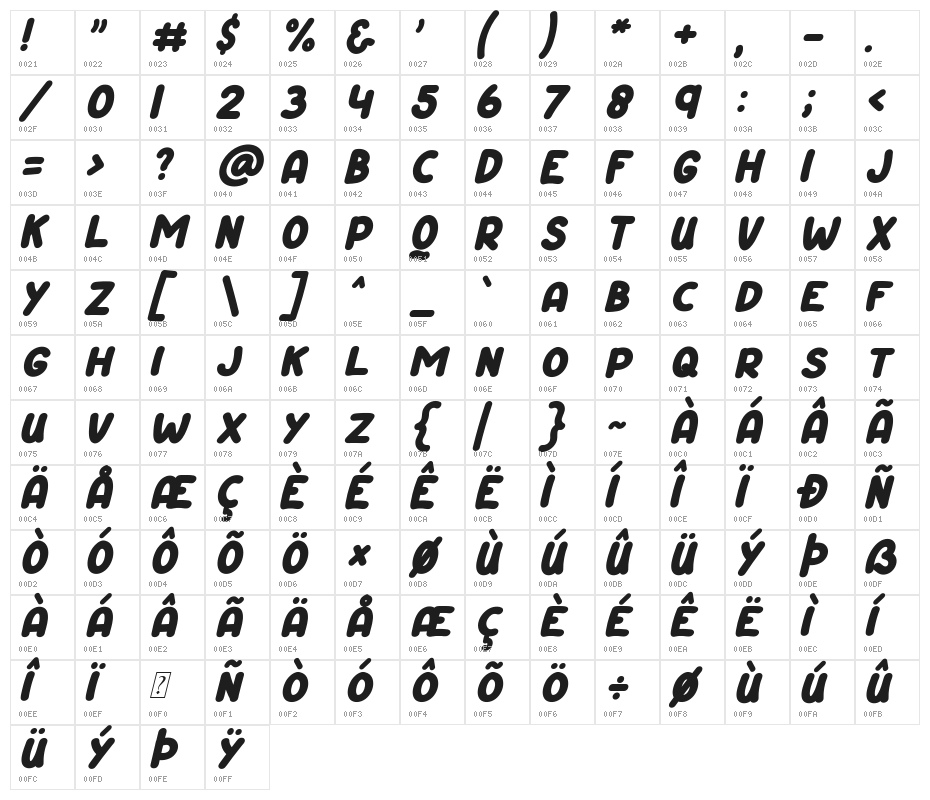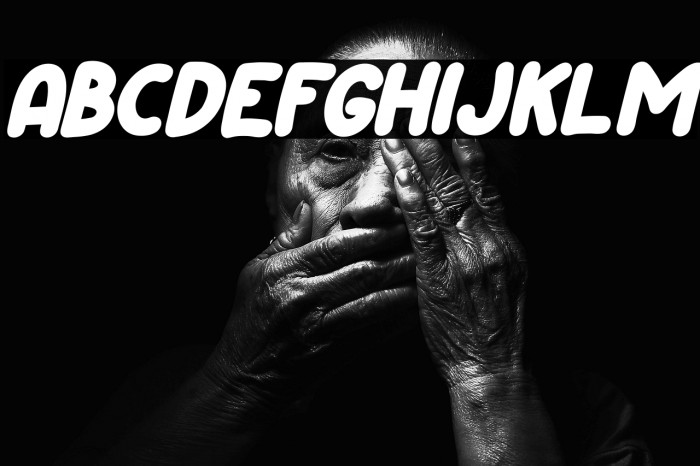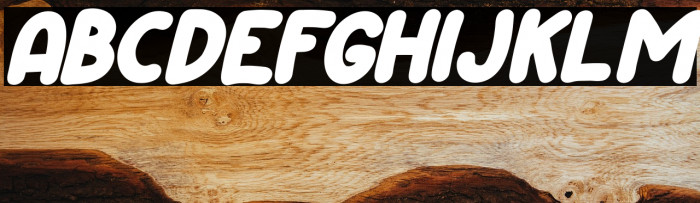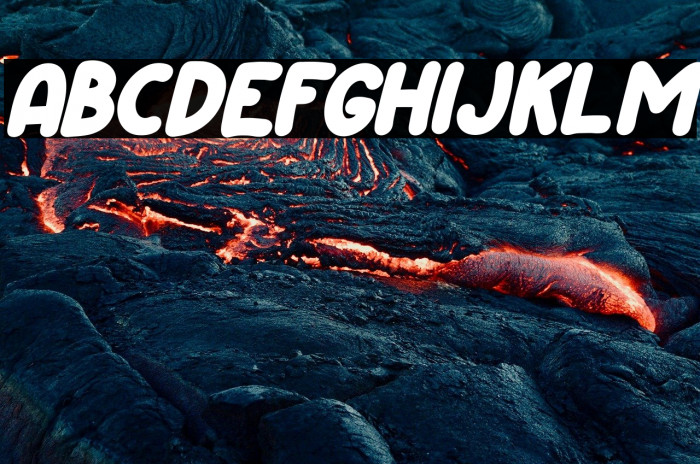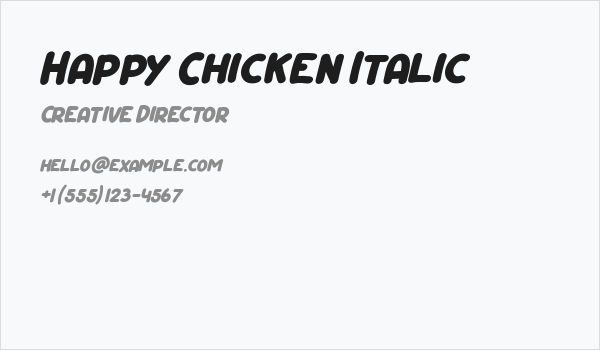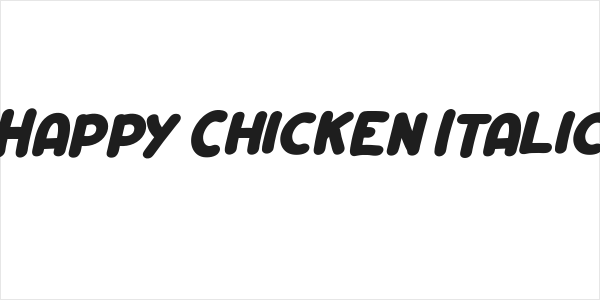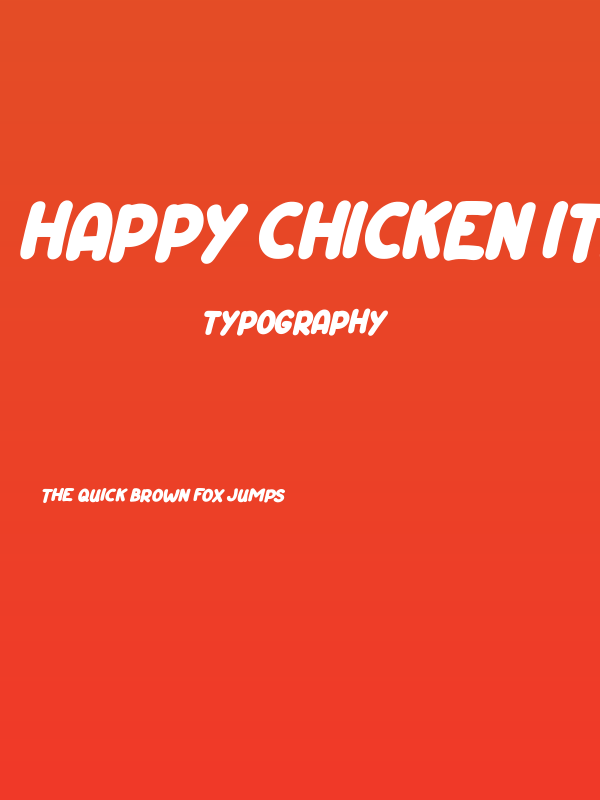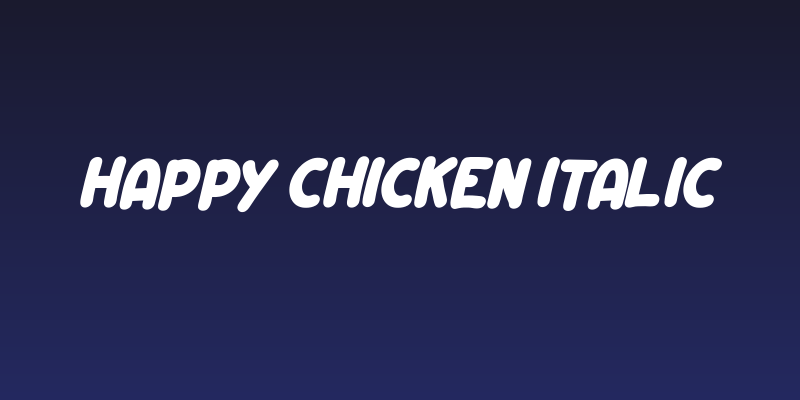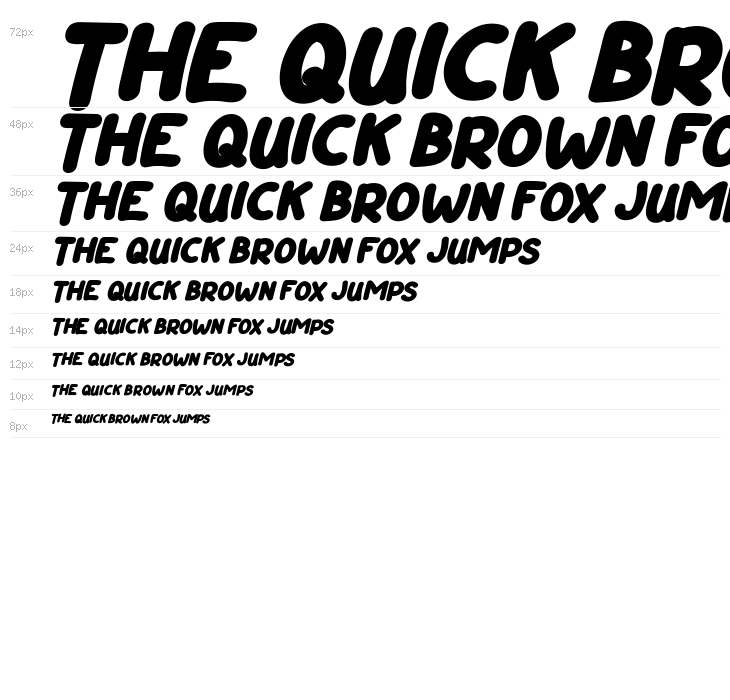
Happy Chicken Italic Font
Happy Chicken Italic Description
This playful and bold font features a handwritten style with a distinct italic slant, giving it a dynamic and energetic appearance. The characters are rounded and thick, providing a friendly and approachable vibe. The uppercase and lowercase letters maintain a consistent style, with smooth curves and a slightly exaggerated width that enhances readability. The numbers and special characters are equally bold and maintain the same playful aesthetic, making them suitable for a variety of creative applications.
| Proposed Projects | Ideal for children's books, playful branding, greeting cards, and posters. |